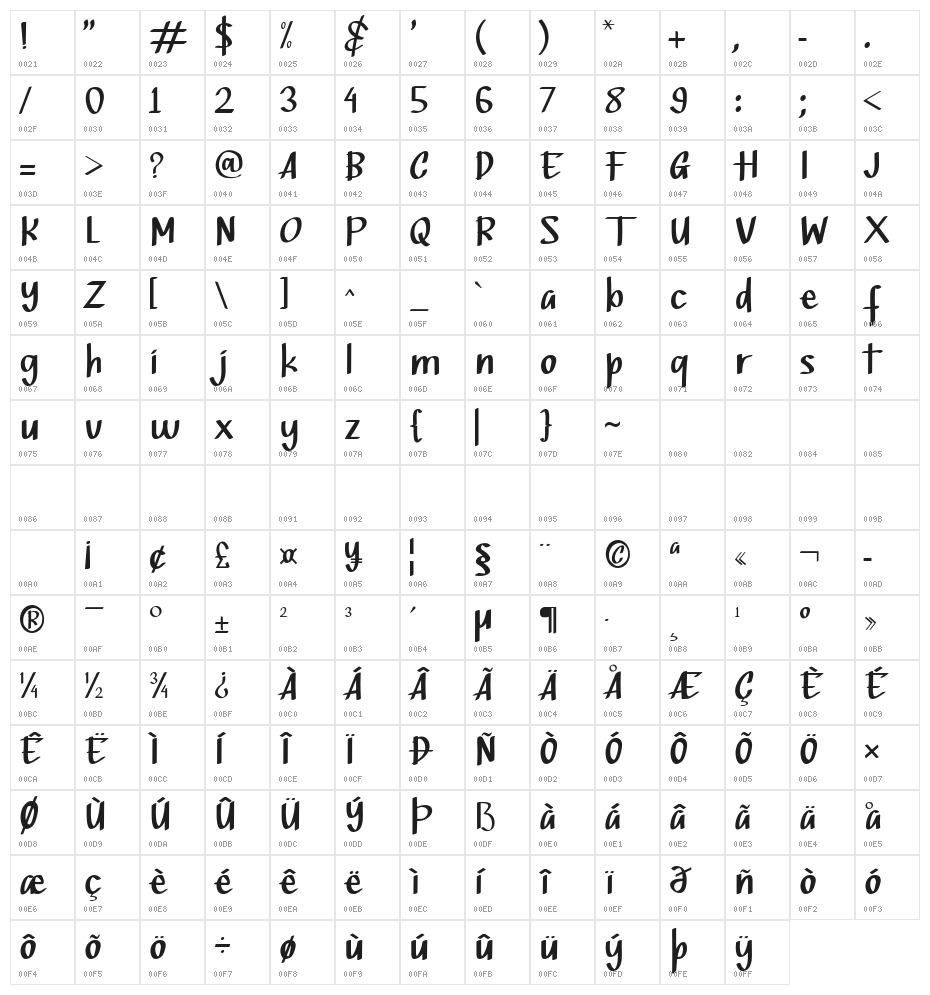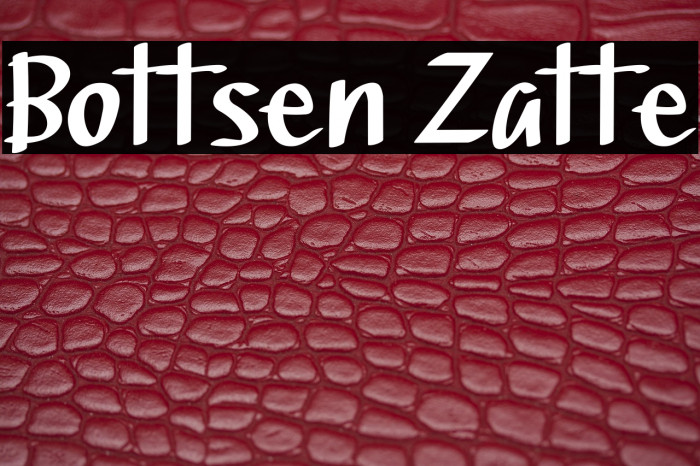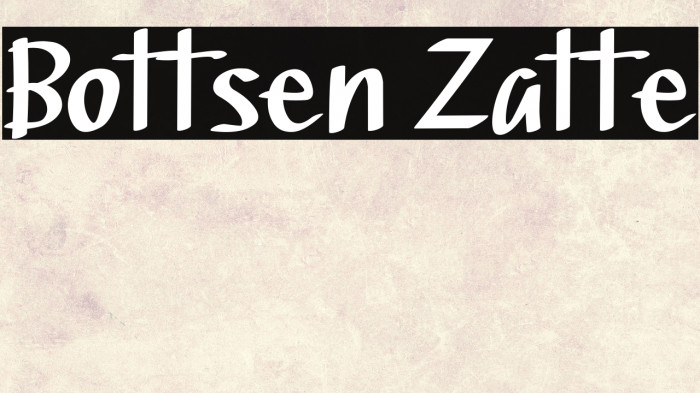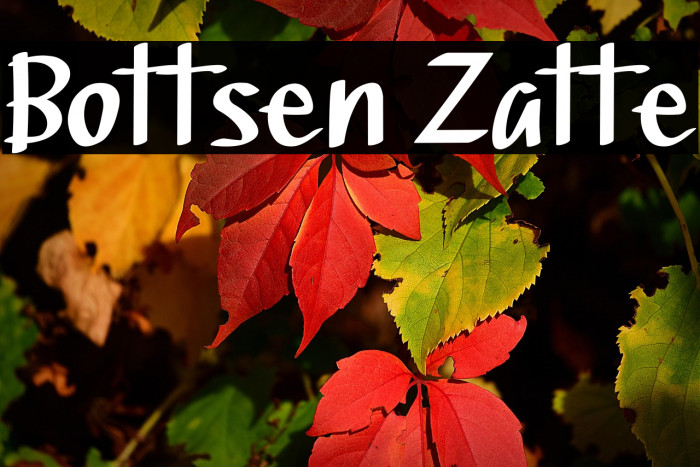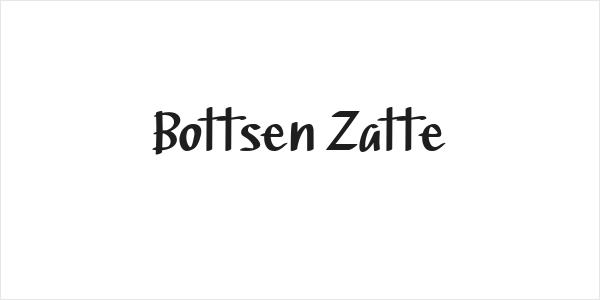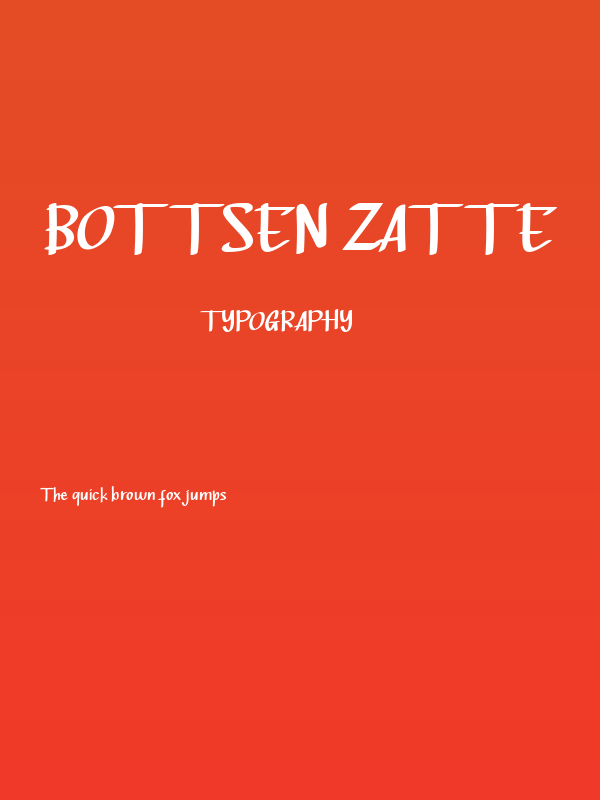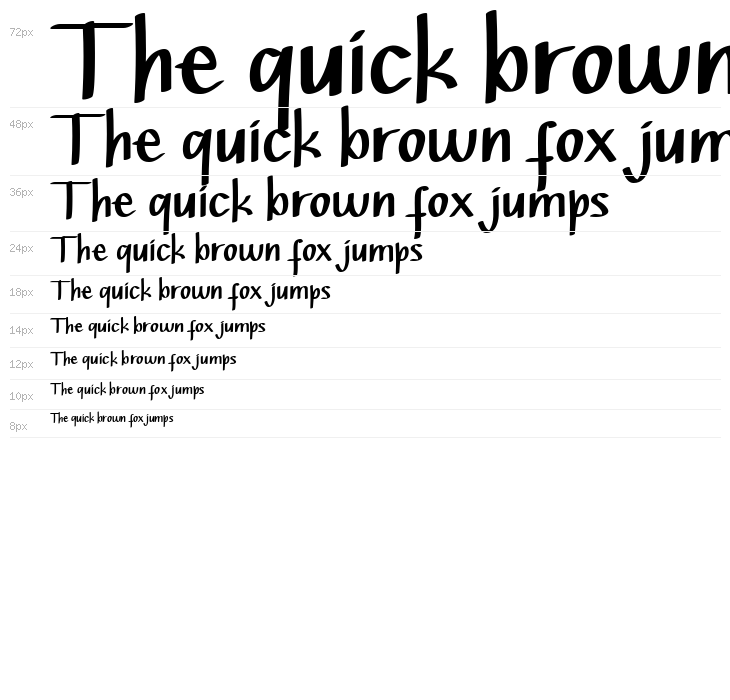
Bottsen Zatte Font
Bottsen Zatte Description
This font exudes a playful and dynamic energy, characterized by its bold and slightly irregular strokes. The letters have a handwritten quality, with a casual and informal style that suggests movement and spontaneity. The uppercase and lowercase letters maintain a consistent flow, while the numbers and special characters complement the overall aesthetic with their quirky and distinctive shapes. The font's design is both approachable and expressive, making it suitable for a variety of creative applications.
| Use Case | Logos, Headlines, Informal text |
| Proposed Projects | Ideal for greeting cards, playful branding, children's books, and creative social media graphics. |